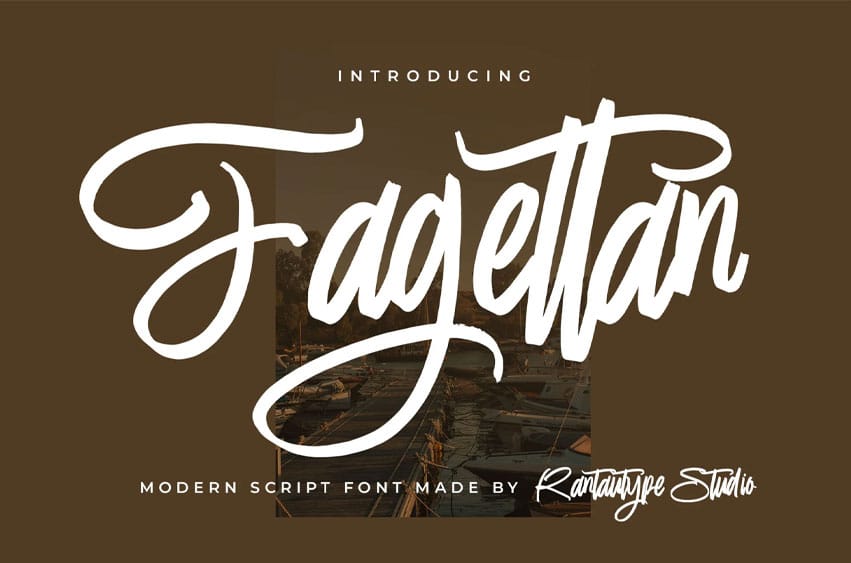
Fagettan Font is a modern script font created by Rantautype Studio.
It is an excellent choice for any creative project, including modern lifestyle designs such as logotypes, titles, covers, branding, invitations, wedding designs, displays, magazines, social media posts, advertisements, printed quotes, product packaging, corporate branding, product designs, labels, photography, watermarks, special events, and any other projects that require a modern touch. a modern touch.